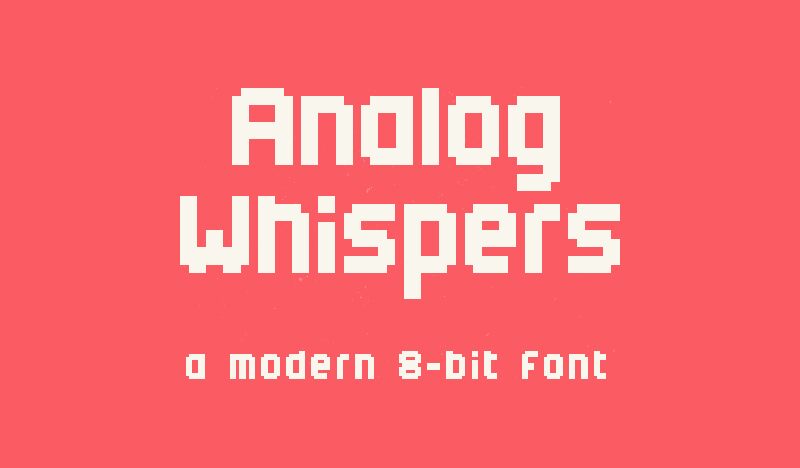
Analog Whispers FREE Regular
Analog Whispers font by DoubleGum is a bold bitmap typeface with a pixelated look and retro vibe. Blocky, geometric, and tech-inspired, it brings the nostalgic beauty of early digital typography to the present day. The free font portrays that 80s unique style both through its characters and small triangular shapes featured in each of them.
Designers can use this creative resource for futuristic projects related to video games, movie posters, book titles (hardcopies or online publications), package design, branding, T-shirts/sweaters graphics/lettering, product labeling etc.
This demo version includes 67 glyphs, encompassing both uppercase and lowercase letters as well as numbers.